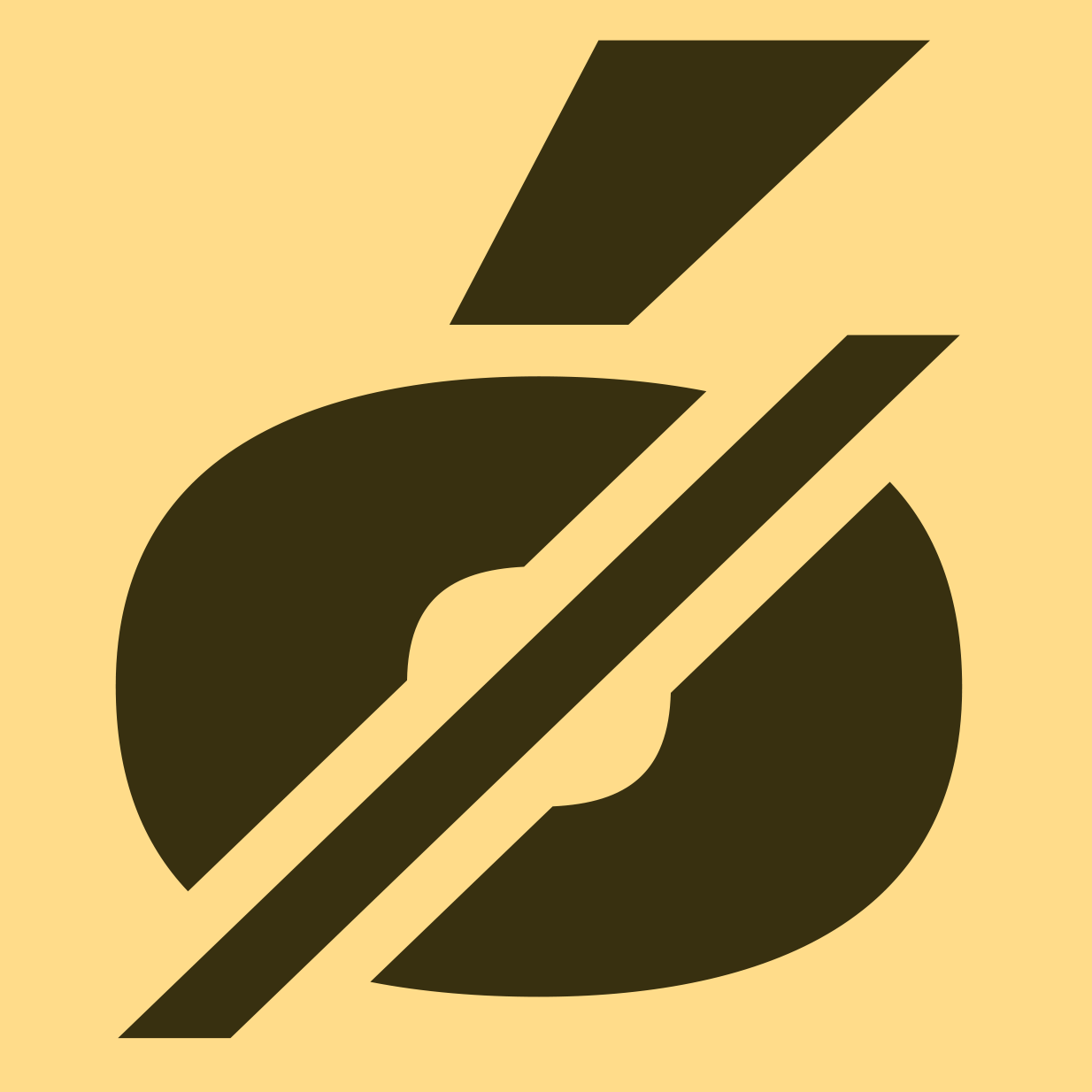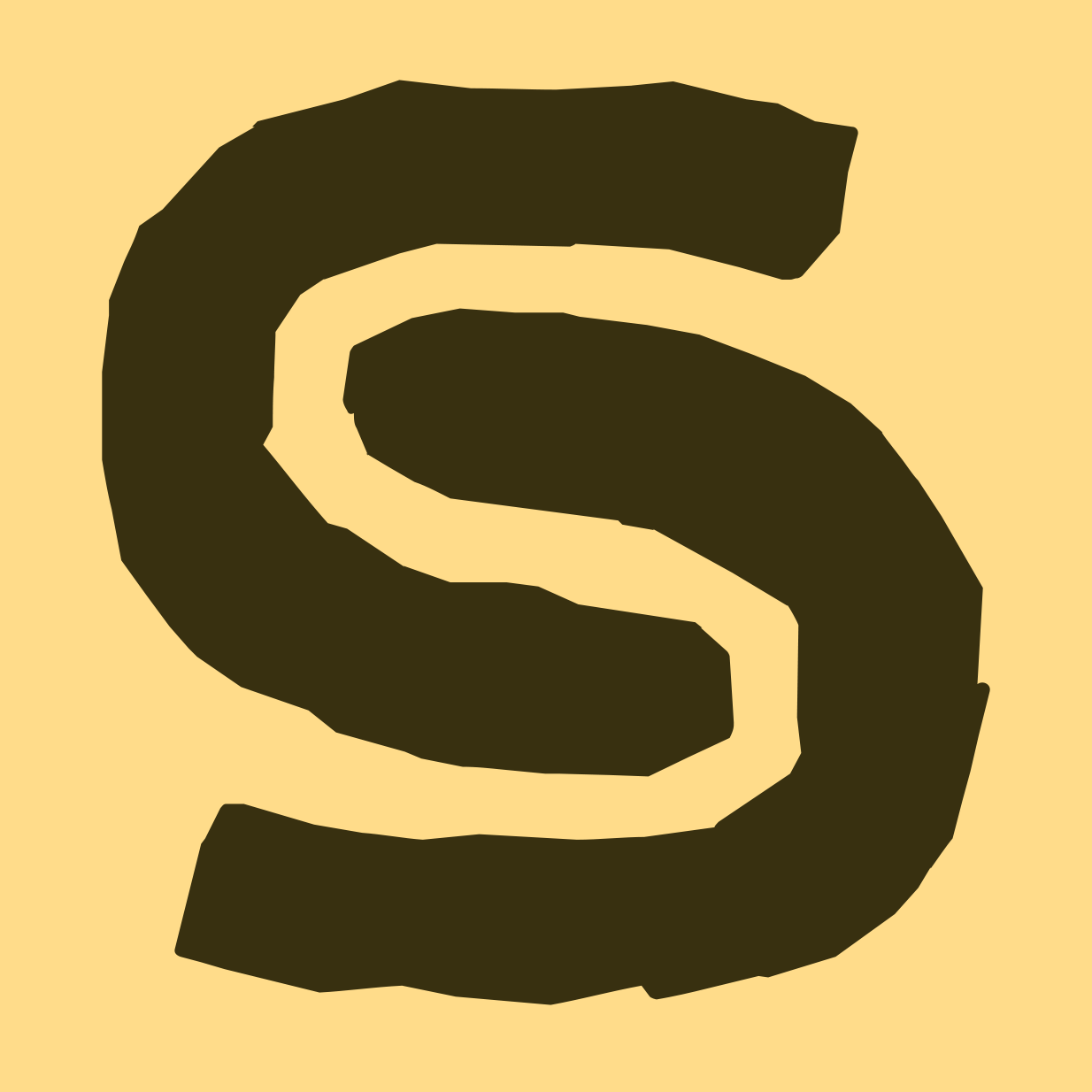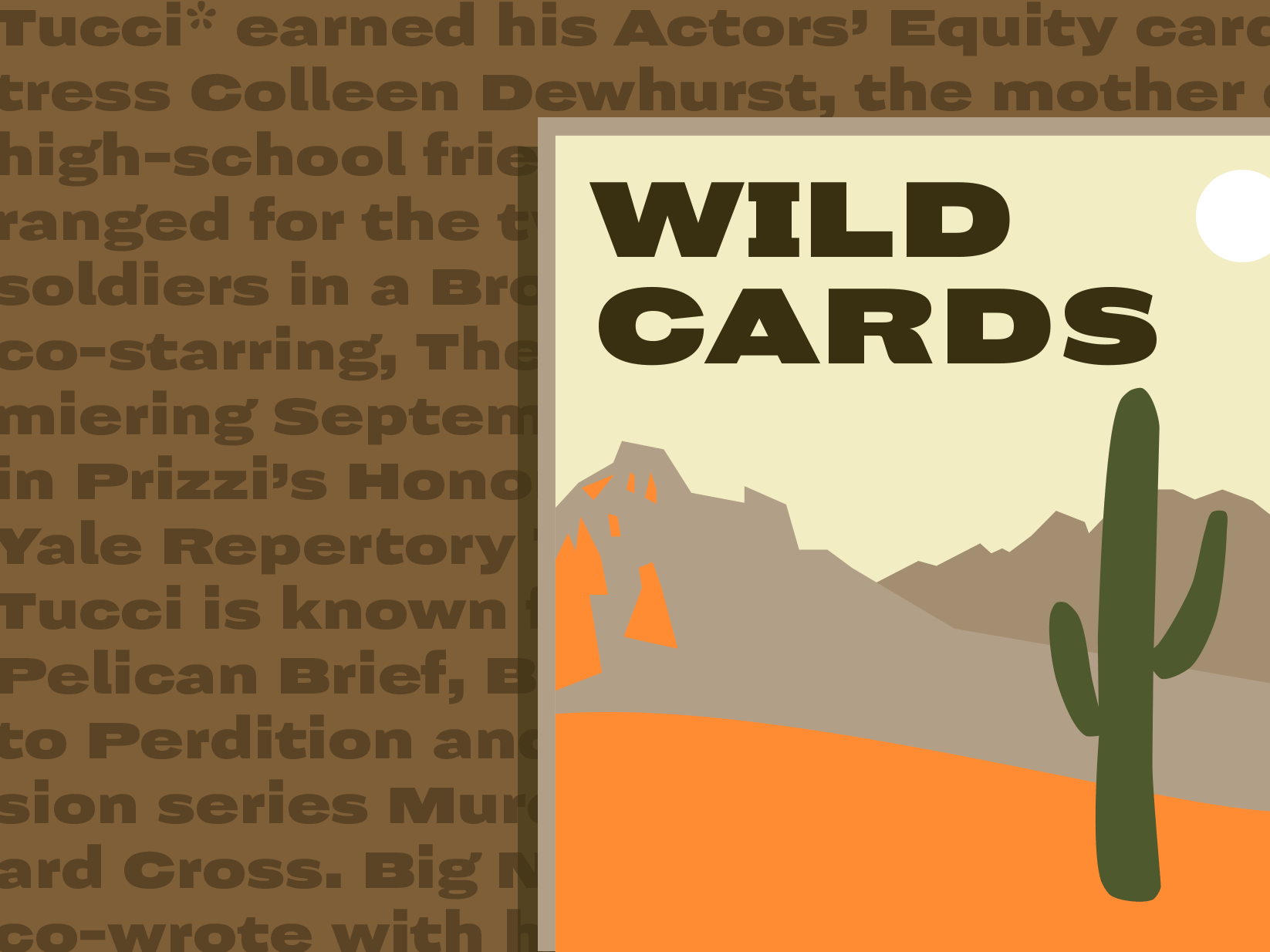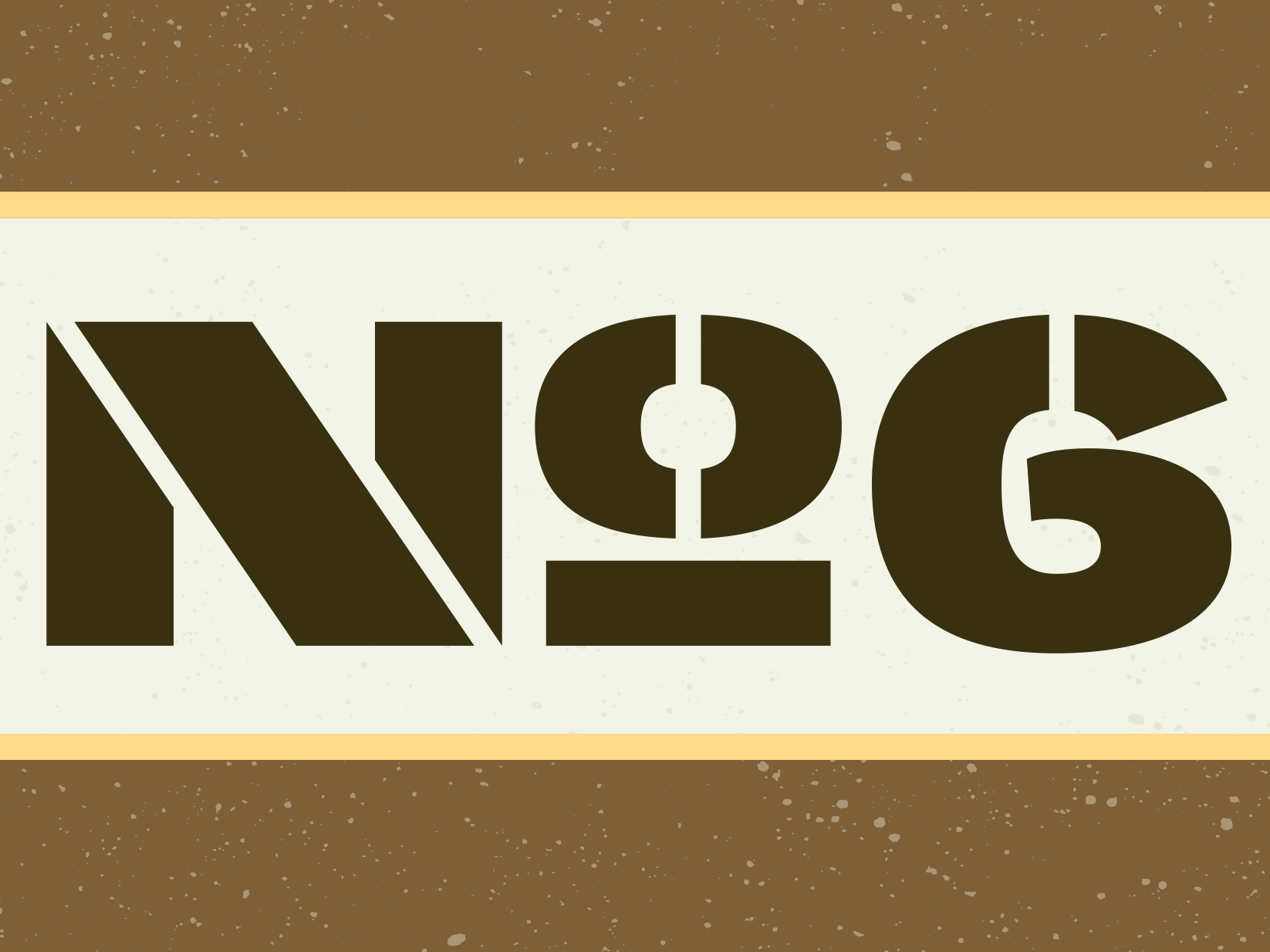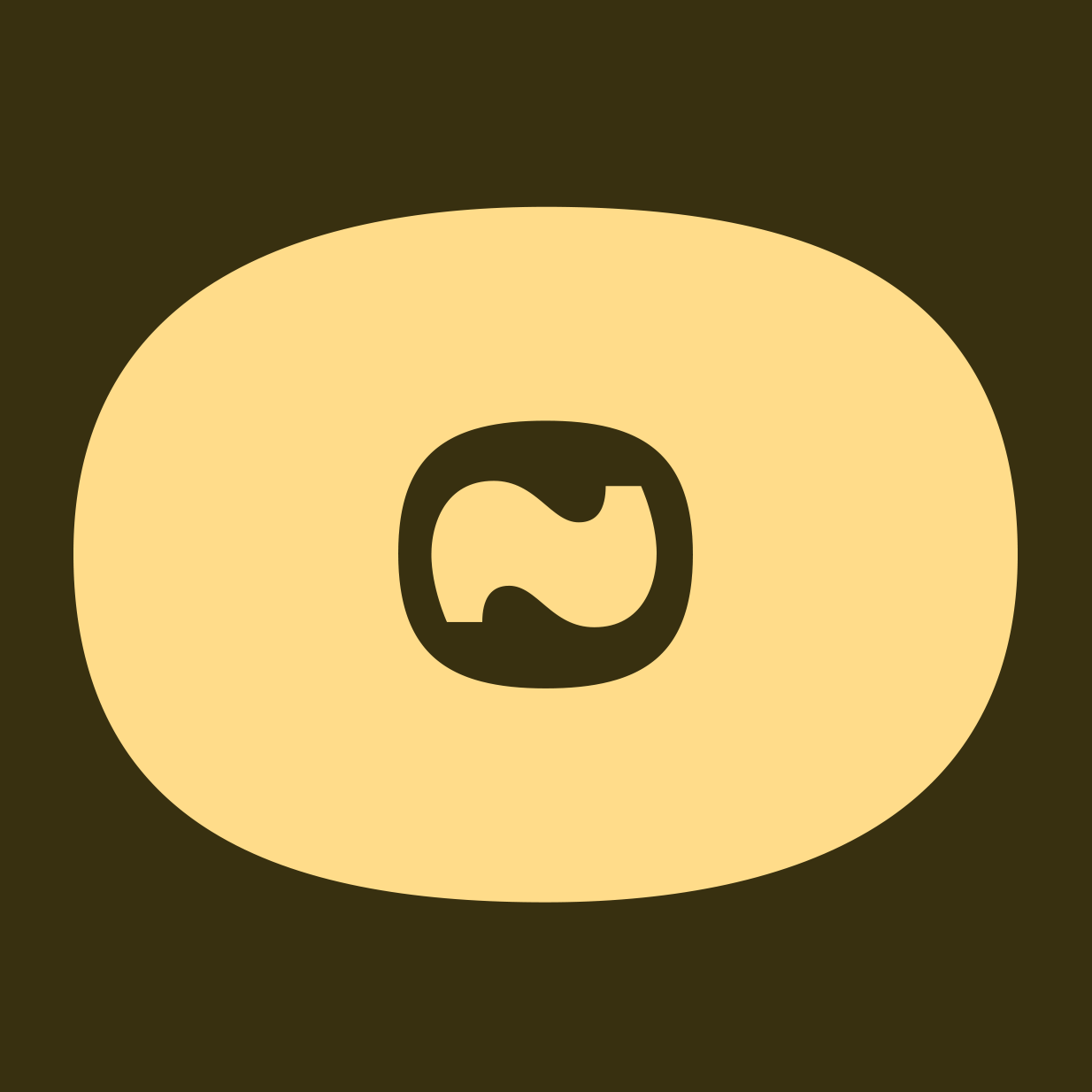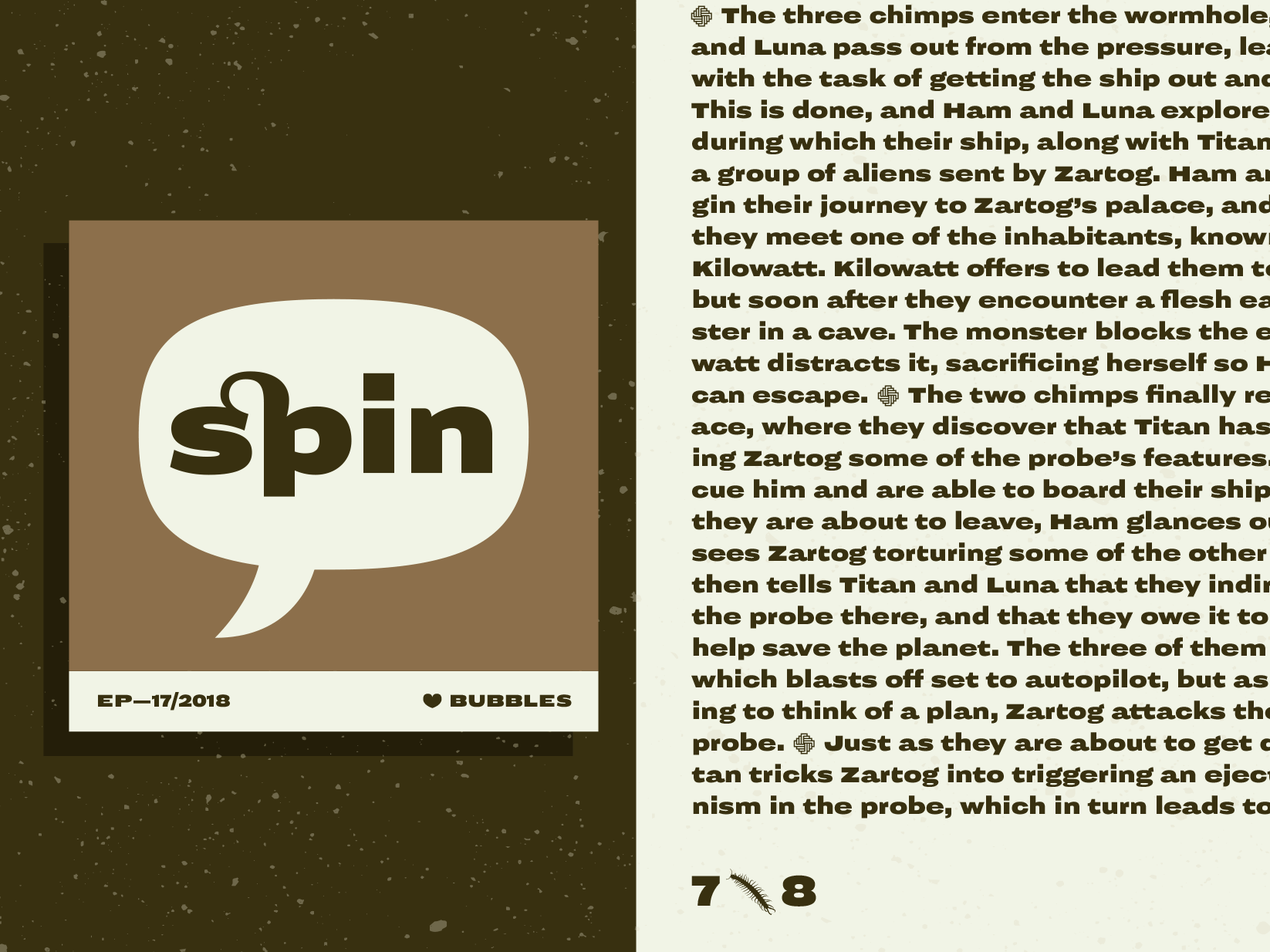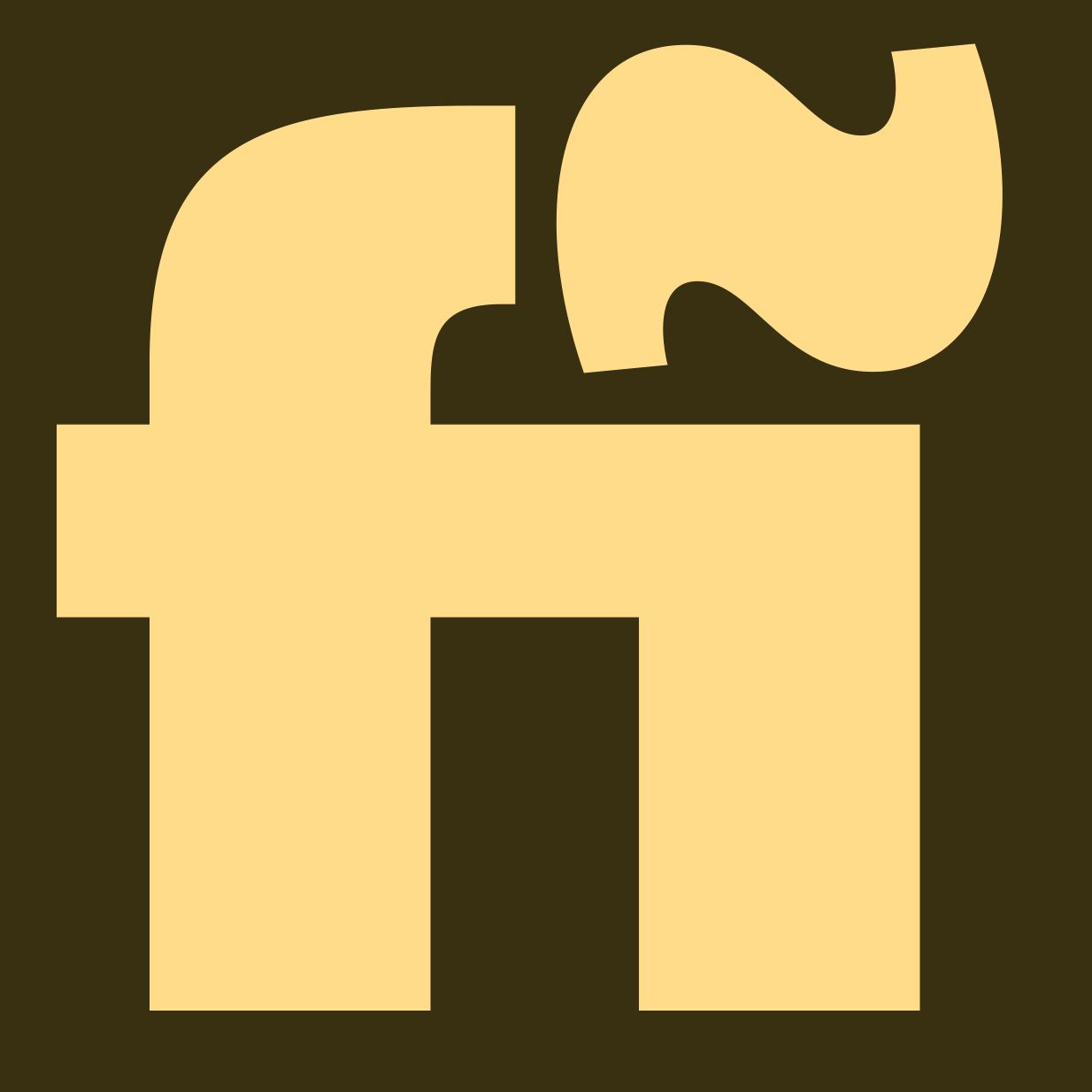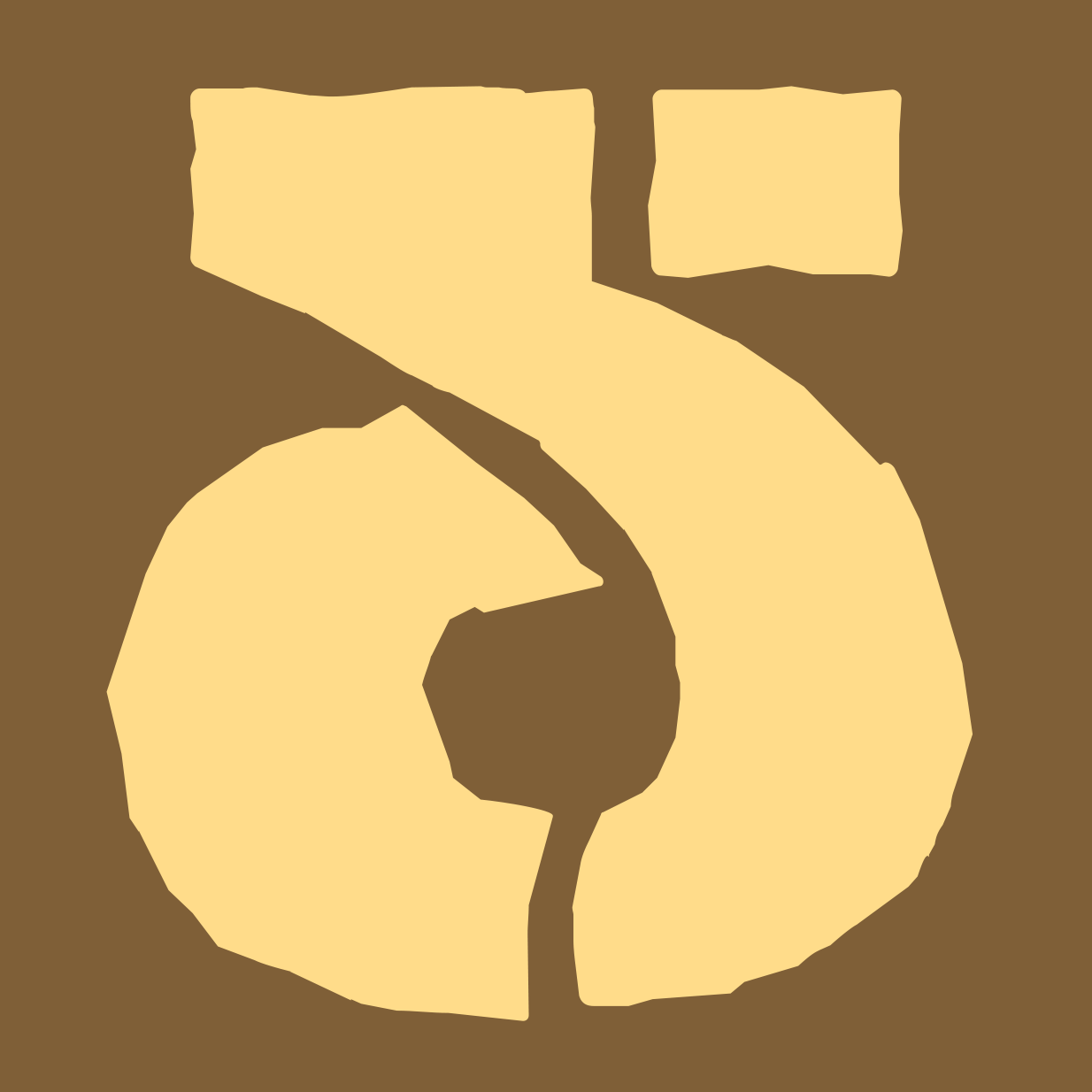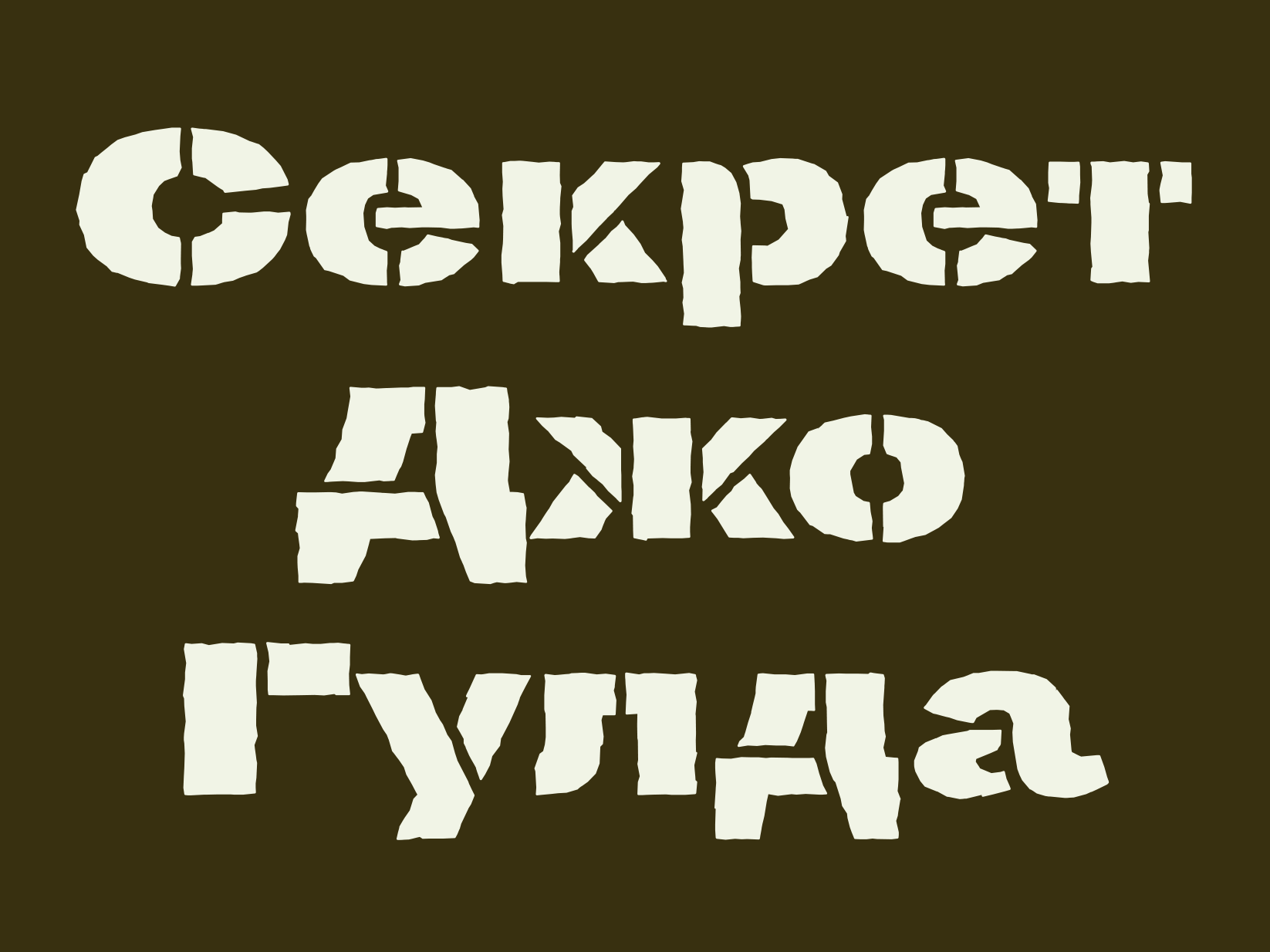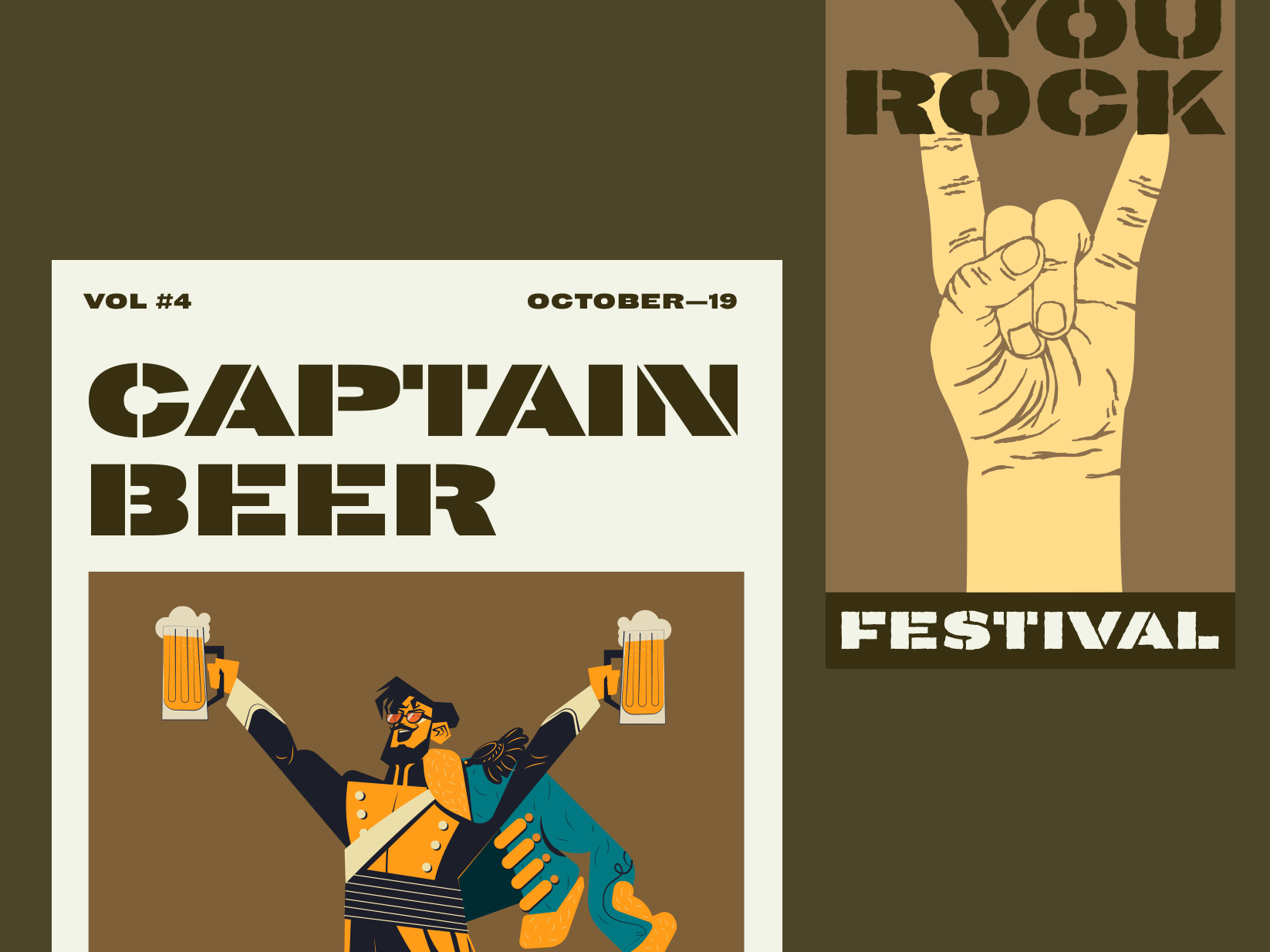
Stanley
Stanley is a bold and broad-shouldered poster typeface collection in three styles that has its roots in the first sans-serif designs of the 19th century — the Grotesques. Originally a British invention, Grotesques gained massive popularity in mainland Europe and also became widespread in early 20th century USA where they were commonly referred to as ‘Gothics’. The quirky and often idiosyncratic shapes of these early English sans-serifs lend them the humanity and warmth still appreciated among many graphic designers today.
Stanley is part of a bigger collection of what we have dubbed ‘Italo-American Grotesques’. There is also Nitti, a monospaced family suitable for continuous text, its proportional brother called Nitti Grotesk, and a typewriter version called Nitti Typewriter (what else … ;)
Stanley is available in three styles, Normal, Stencil, and Stencil Rough, with a large character-set including arrows and dingbats, and wide language support for the Latin, Greek and Cyrillic scripts. OpenType features provide access to many extras including ligatures, stylistic alternates and different kinds of numbers.